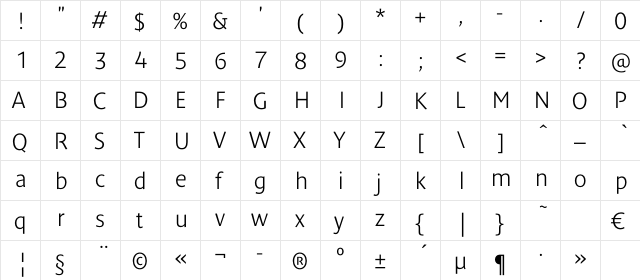
DendaNewLightC Regular
Design Context for DendaNewLightC Typeface
DendaNewLightC offers clean, dependable letterforms without strong stylistic allegiance, making it a practical choice for designers who need flexibility. Its slender proportions lend an understated elegance to any composition.